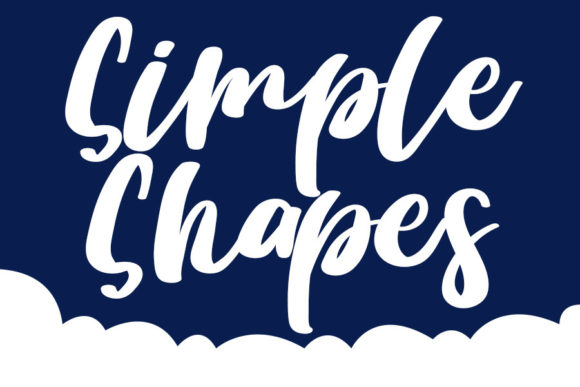
Unleash the charm of Simple Shapes, a script font family that radiates warmth and elegance, reflecting the beauty of handwritten notes. Embrace the unique and natural flow of this font, a testament to individuality that adds a personal touch to your creative projects. With its versatile nature, Simple Shapes effortlessly blends with any design concept, like a chameleon adapting to its surroundings.
Allow your imagination to run wild as you explore the limitless possibilities of Simple Shapes. Its delicate strokes evoke a sense of nostalgia, a reminder of cherished handwritten letters, while its contemporary flair keeps it relevant and modern. Picture your designs adorned with the graceful curves and flowing lines of Simple Shapes, each character carrying a story, each word adding a layer of charm.
Envision your wedding invitations, adorned with Simple Shapes, as they gracefully announce the beginning of your love story. Each letter, meticulously crafted, conveys the heartfelt emotions of your special day. The font's soft edges and subtle variations create an intimate atmosphere, inviting your guests to share in your joy.
Step into the world of branding and marketing, where Simple Shapes transforms your logo and brand identity into a symbol of authenticity and creativity. Its natural aesthetic resonates with customers, building an emotional connection that fosters loyalty and trust. Imagine your brand standing out from the crowd, its unique personality shining through the distinctive lines and curves of Simple Shapes.
For those with a penchant for personal expression, Simple Shapes offers a canvas to showcase their creativity. Whether it's heartfelt notes to loved ones, personalized cards, or stunning social media posts, this font adds a touch of warmth and sincerity to every word. Its versatility shines through, adapting effortlessly to various styles and moods, always maintaining its charm and elegance.